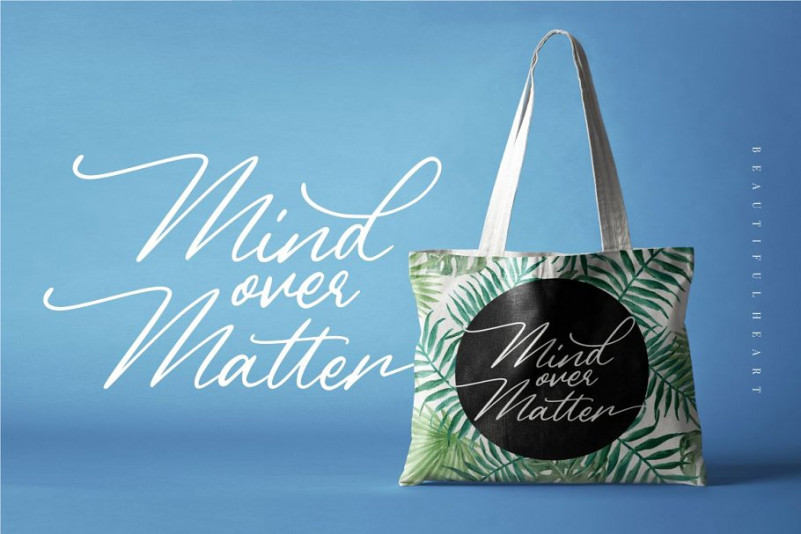
Beautiful Heart Script Font
Continues to be a beauty script font of Garisman Std. A romantic calligraphy script font. Inspired by modern calligraphy, this font will delight you with its romantic charm, elegance, lightness. Introducing Beautiful Heart Font! Beautiful Heart is a calligraphy script, It’s perfect for logo, invitation, stationery, wedding designs, social media posts, advertisements, product packaging, product designs, label, photography, watermark, special events or anything. Beautiful Heart comes with full set of uppercase and lowercase letters, multilingual symbols, numerals, punctuation.